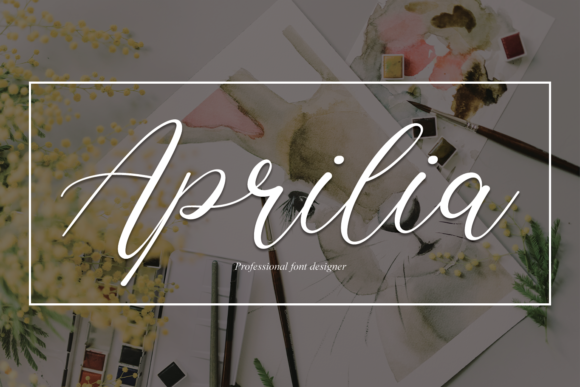
Introduction to Aprilia Font
Aprilia is a lovely and delicate script font that exudes elegance and class.
This font was particularly crafted for those who need a beautiful and refreshing look to their designs .
Aprilia Font offers exceptional quality and versatility, making it a valuable addition to your design toolkit. Whether you’re creating for personal projects or commercial use, Aprilia Font delivers professional results.